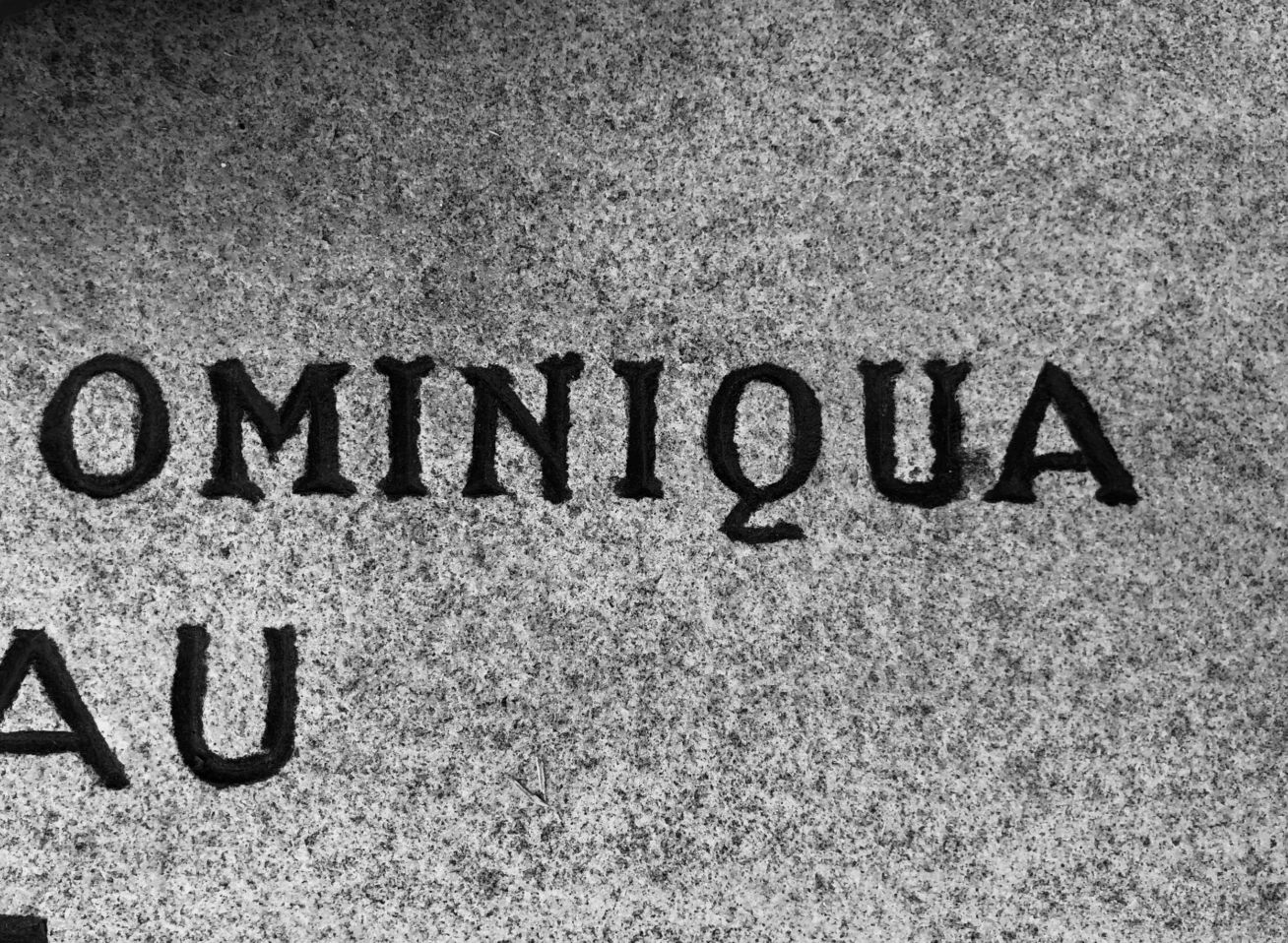
OMINIQUA
The inspiration for Ominiqua comes from a detail from a stone carved memorial plate located in the south of France. The significantly aged and weathered stone-carved lettering called for interpretation and provided scope for major invention in order to create a full alphabet. The result is a set of characterful serif fonts that are distinctive in large sizes yet rather anonymousin text settings. Ominiqua is a hard-working, robust font that combines a contemporary appearance with plenty of classical details.
Source material. Photo © A2-TYPE